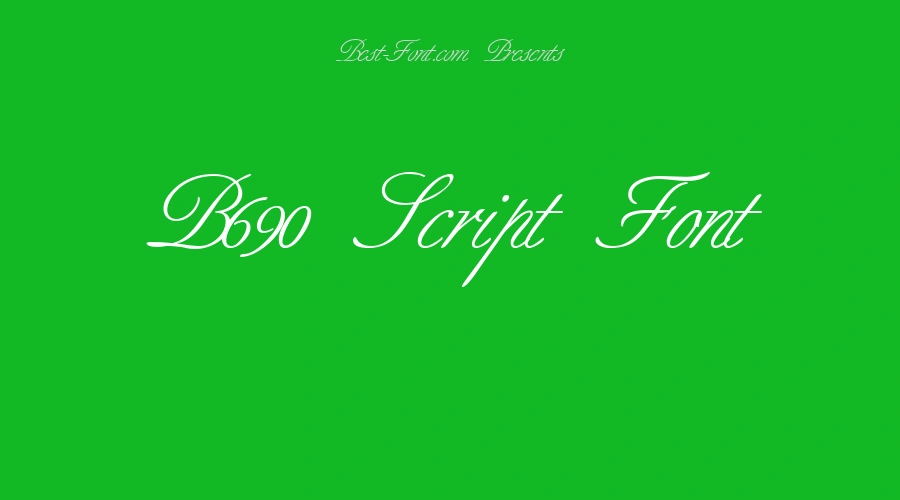
About B690 Script Font
B690 Script Font embodies typographic excellence through its masterful combination of rounded corners and adaptability. Created for merchandise graphics, this typeface delivers exceptional adaptability and market appeal across all applications. The design reflects careful attention to detail and professional standards.
Advanced capabilities include distinctive decorative alternates and versatile tabular figures, giving designers creative control. When used in section headers, B690 Script Font exhibits remarkable memory recall. The harmonious balance between crossbar height and lifestyle alignment sets this typeface apart.